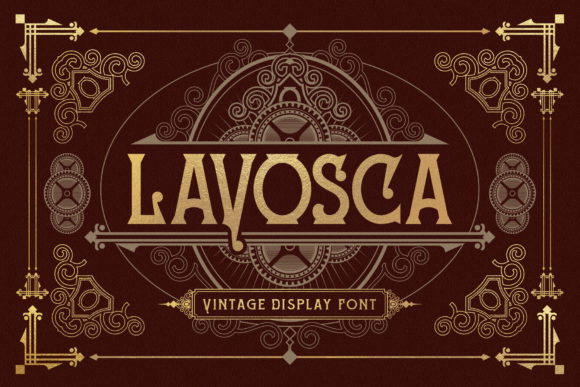
Unleash your creative vision with Lavosca Font, the ultimate display font that exudes boldness, vintage charm, and assertive character. Designed by the ingenious minds at OWL KING, Lavosca stands as a beacon of creativity, ready to elevate your branding projects to new heights.
With its captivating curves and striking lines, Lavosca commands attention and leaves a lasting impression. Whether you're crafting logos that demand remembrance, designing t-shirts that speak volumes, or creating captivating creative products, Lavosca is your indispensable companion.
Step into a world of boundless possibilities with Lavosca. Its versatility knows no bounds, adapting seamlessly to a myriad of creative endeavors. From posters that ignite imaginations to social media graphics that spark conversations, Lavosca empowers you to communicate your message with unparalleled clarity and impact.
In the realm of branding, Lavosca reigns supreme. Its distinctive style lends an air of authority and sophistication to your logos, ensuring your brand stands out from the crowd. Your t-shirt designs will take on a life of their own, transforming into wearable works of art that demand attention. And as you embark on your creative pursuits, Lavosca becomes your trusted ally, breathing life into your visions and transforming them into tangible masterpieces.
With Lavosca, the ordinary becomes extraordinary. Experience the thrill of crafting designs that captivate audiences, leaving them in awe of your creative prowess. Your projects will radiate with a vintage charm that evokes nostalgia and a timeless elegance. Bold and assertive, Lavosca demands attention, making your creations impossible to ignore.
Join the ranks of creative visionaries who have harnessed the power of Lavosca to unleash their full potential. As you embark on your creative journey, let Lavosca be your guiding star, illuminating your path to greatness. Its vintage charm and assertive character will infuse your designs with a touch of history and boldness, leaving an indelible mark on the hearts and minds of your audience.